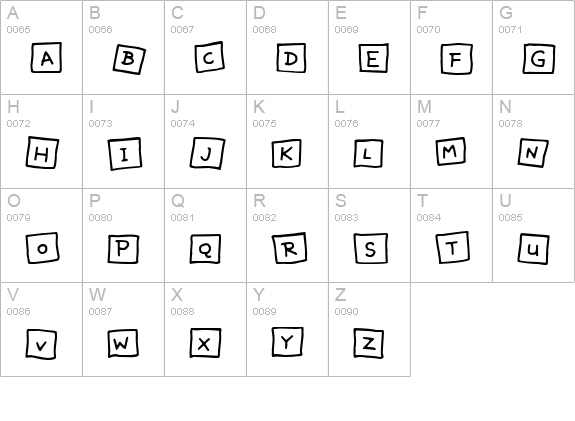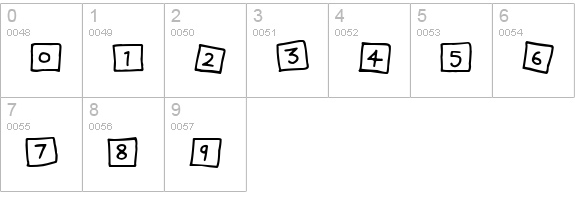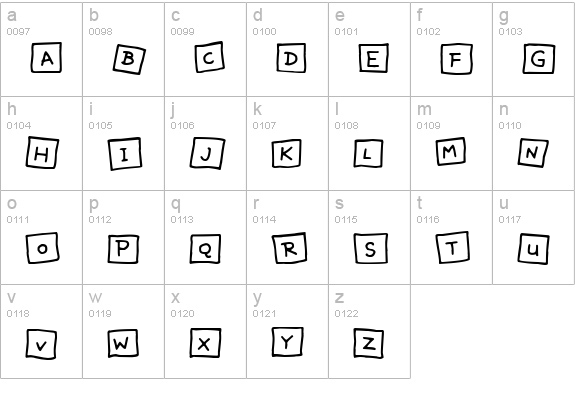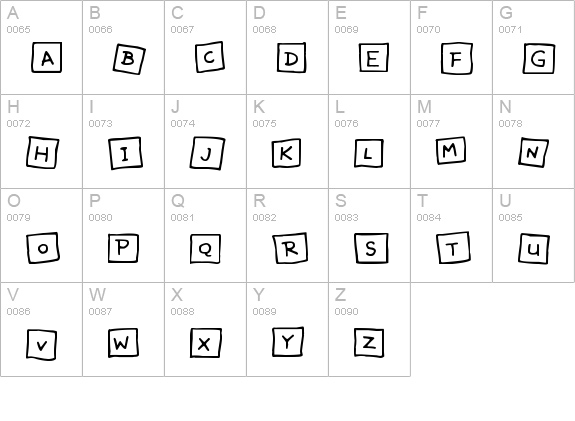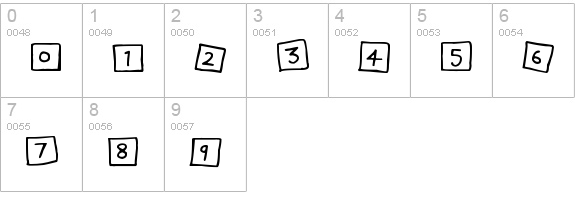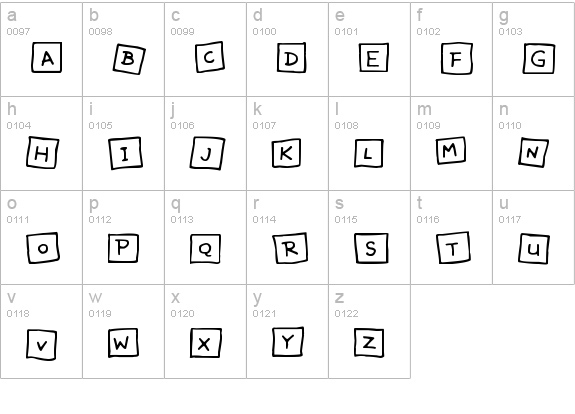
Cute Notes Font Details
Cute Notes is a donationware font in the Fancy > Decorative category, designed by Darrell Flood. It has been downloaded 373 times and is available for Windows, Mac and Linux.
Introducing Cute Notes font, a delightful and charming typeface that will bring a touch of whimsy to your creative projects. With its playful and handwritten style, Cute Notes is perfect for adding a cute and fun element to your designs. This font is versatile and can be used for a variety of projects, from greeting cards to social media graphics.